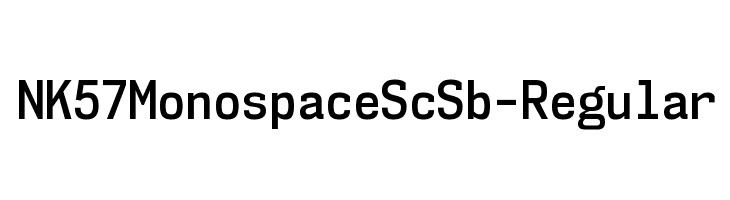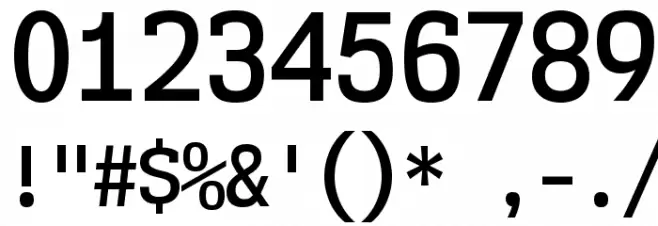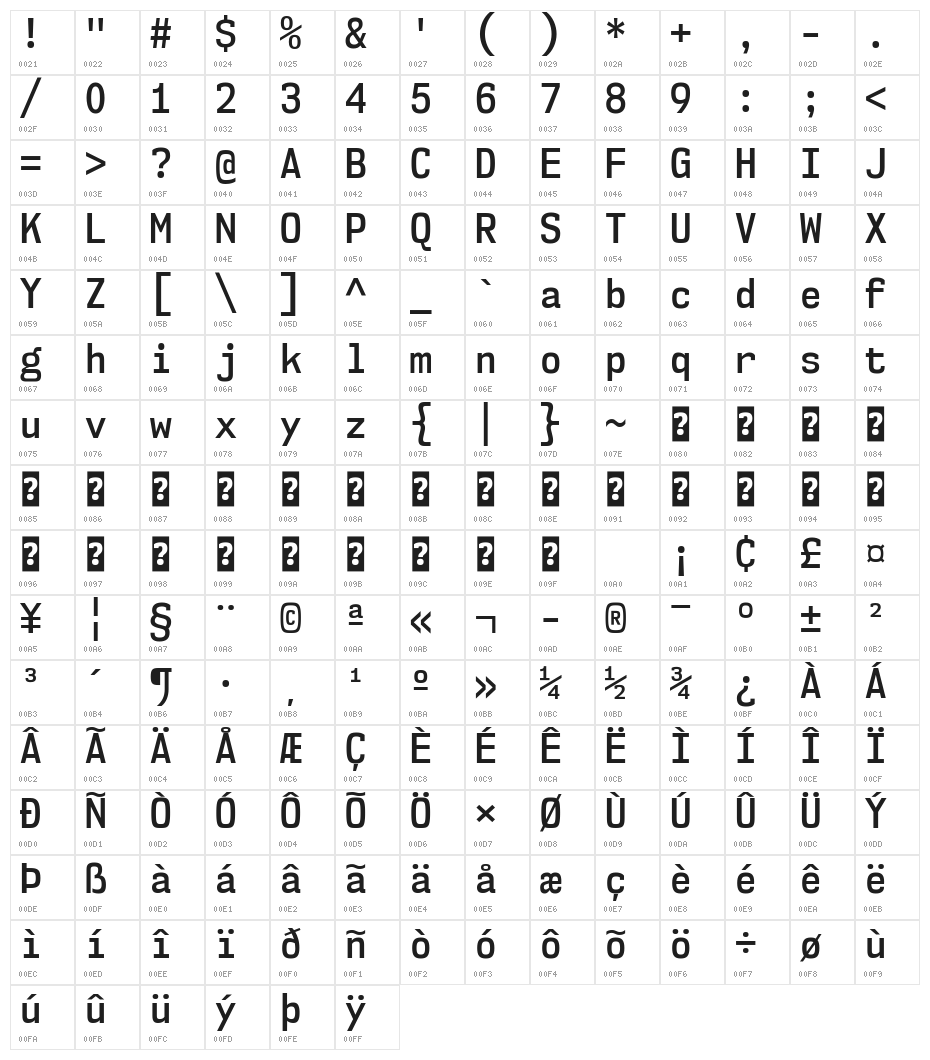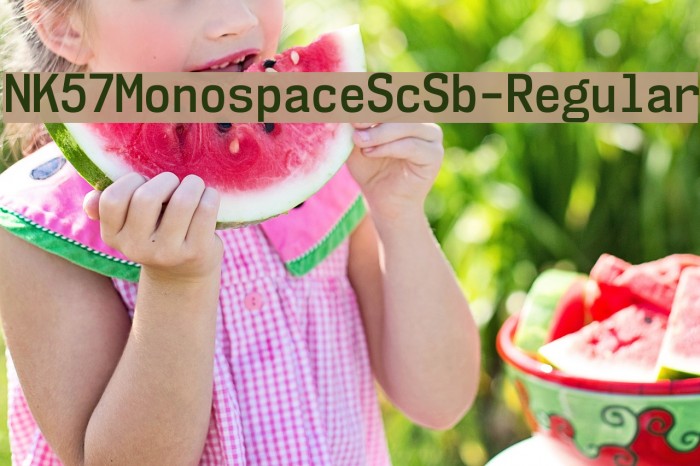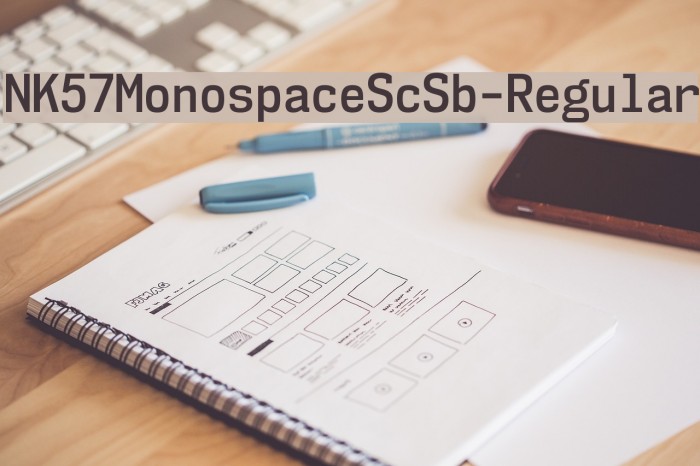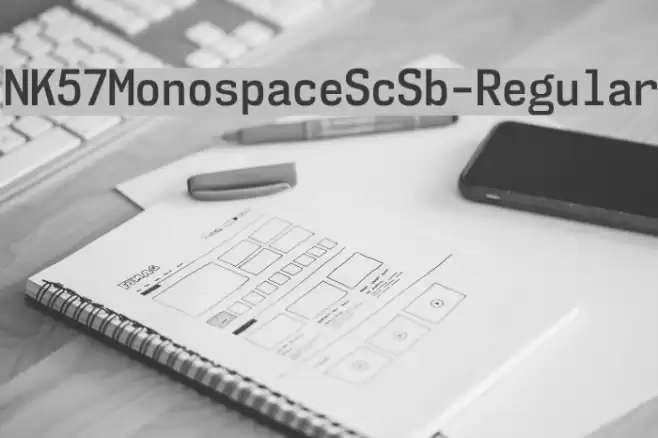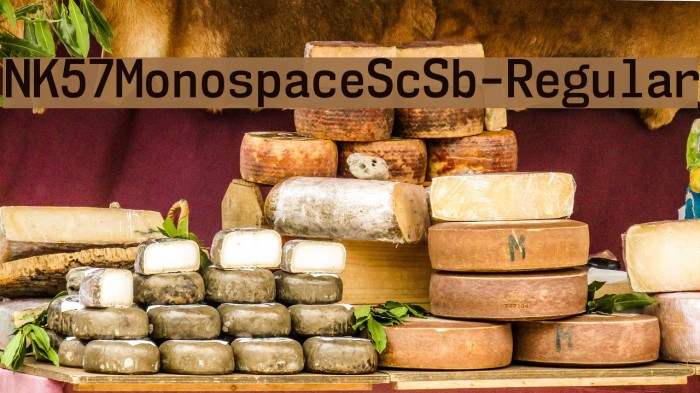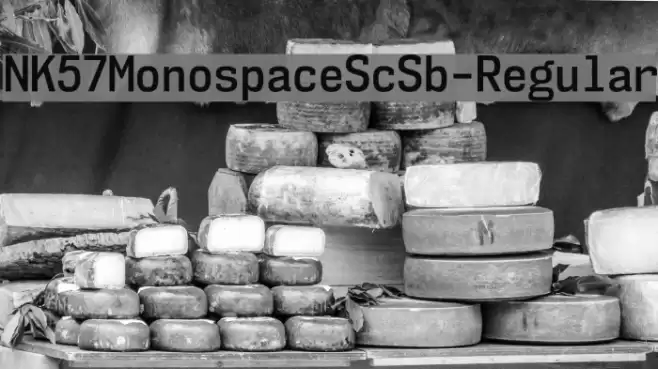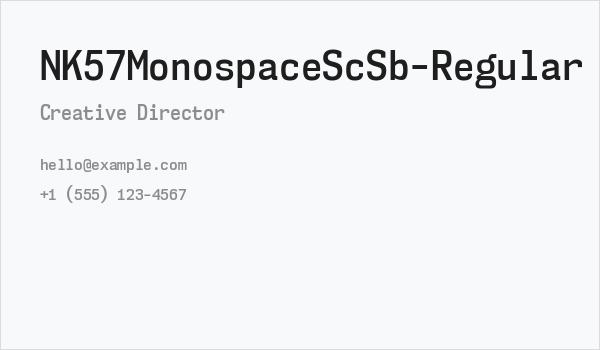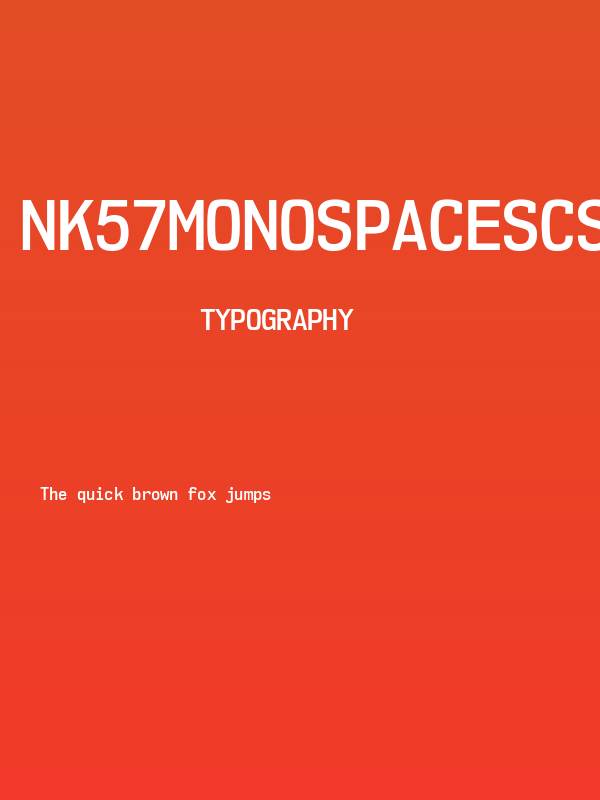
NK57MonospaceScSb-Regular Font
NK57MonospaceScSb-Regular Description
This font features a clean and structured design, characterized by its monospaced nature where each character occupies the same amount of horizontal space. The letters are bold and clear, with a modern aesthetic that emphasizes readability and precision. The uppercase and lowercase letters maintain a consistent height, contributing to a uniform appearance. The numerals are straightforward and align perfectly with the alphabetic characters, enhancing the font's utility in coding and technical documentation. Special characters are distinct and easily identifiable, ensuring clarity in various contexts.
| Use Case | Headlines, Body text, Logos, Coding |
| Proposed Projects | Ideal for coding environments, technical documentation, and any project requiring precise alignment and readability. |